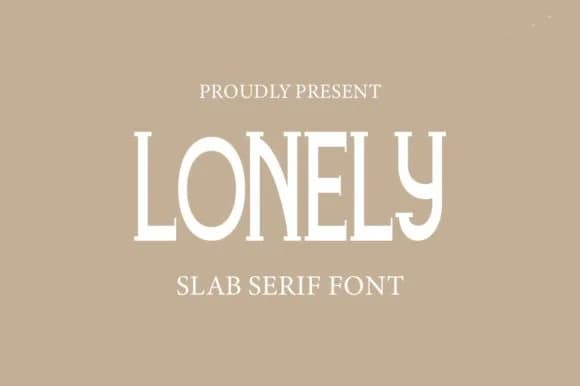
Lonely strikes a bold, contemporary note that cuts through visual noise with genuine confidence. Designed by gunaloe12, Lonely combines geometric sharpness with substantial weight and commanding presence that works across scales.
You'll find it particularly strong for athletic apparel branding where immediate visual impact is essential, bold poster headlines that hold their own at distance, custom t-shirt graphics that feel intentional and crafted rather than generic, and movie title treatments that gain character from its architectural feel. Product packaging and specialty labels gain real authority from the typeface's solid, grounded foundation. Social media cover images become noticeably more memorable with Lonely's commanding presence, particularly when promoting sport events, independent bands, or brand announcements that need to stand out in crowded feeds.
The slab serif structure delivers strong visual hierarchy without extra effects or unnecessary flourishes getting in the way. Pair it with a refined, minimal sans-serif for body text or supporting copy to create appealing contrast while maintaining readable flow across sizes and platforms. This combination works especially well for apparel labels, poster hierarchies with multiple levels, and digital layouts where you want both visual power and legibility. Get Lonely from Creative Fabrica and add it to your design toolkit.
Lonely Font is a slab serif font that shines as a display or heading face. Pair it with a clean sans-serif or serif font for body text — the contrast creates a clear hierarchy while the two styles stay balanced and easy to read.